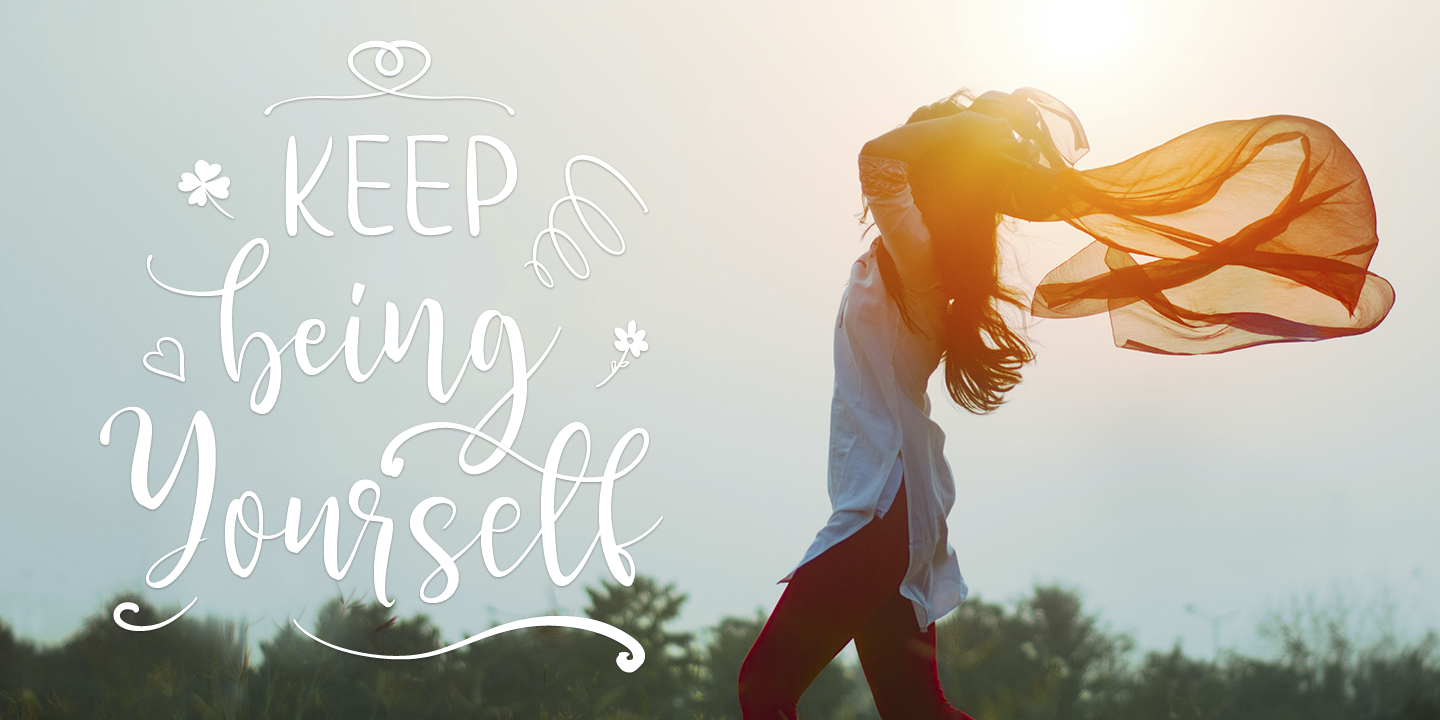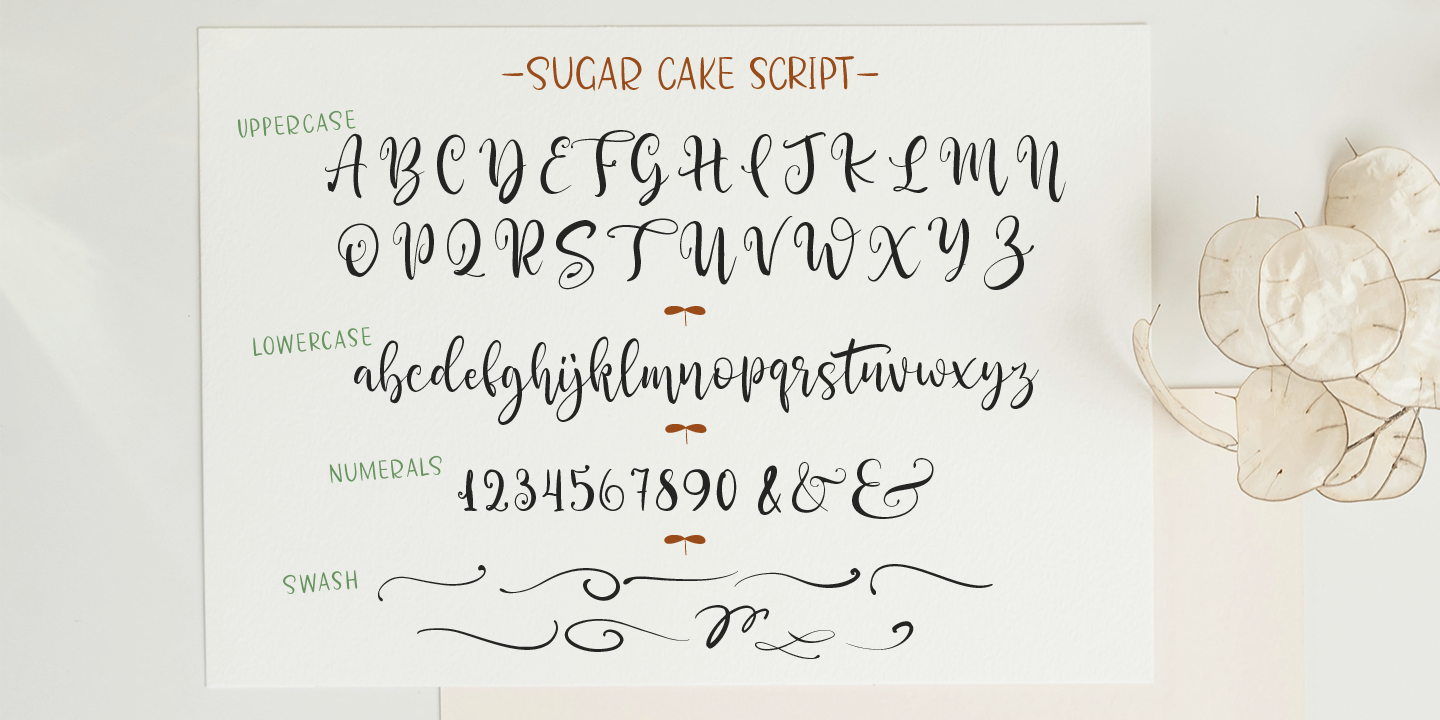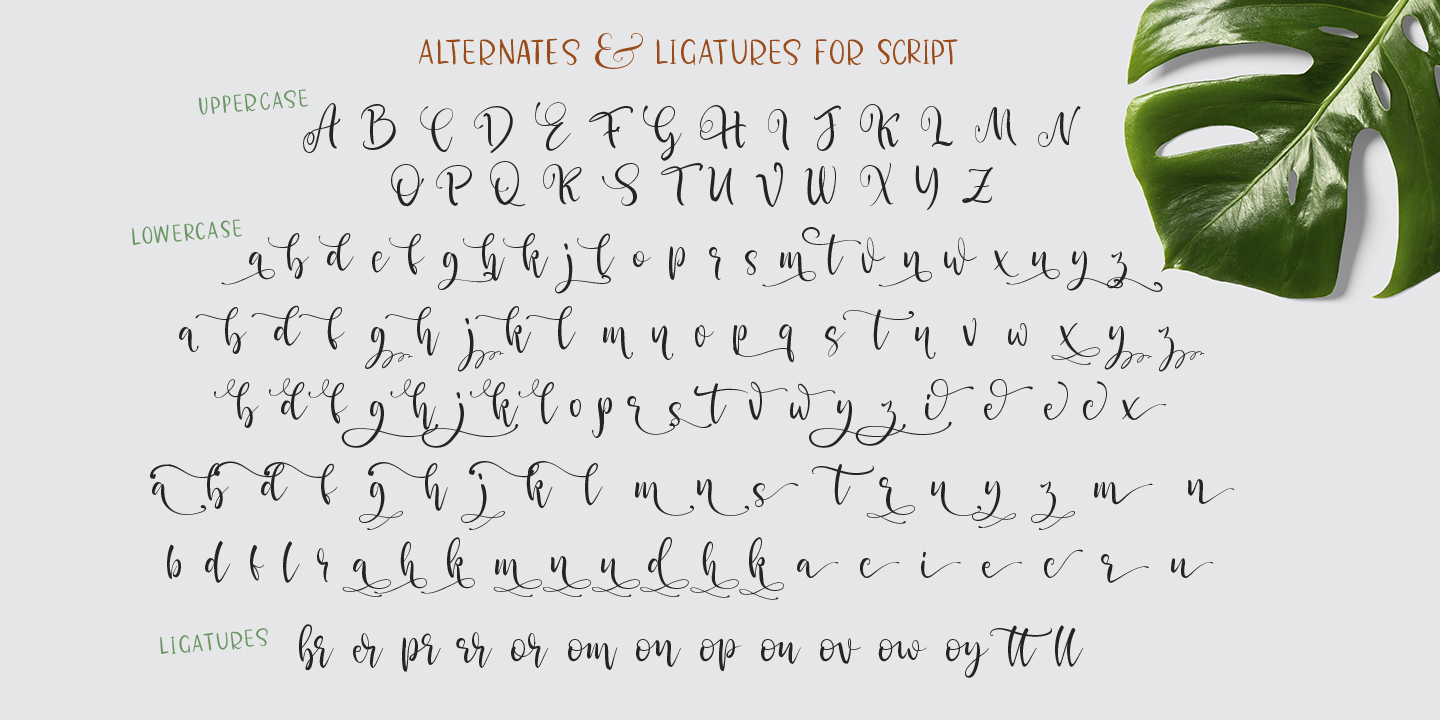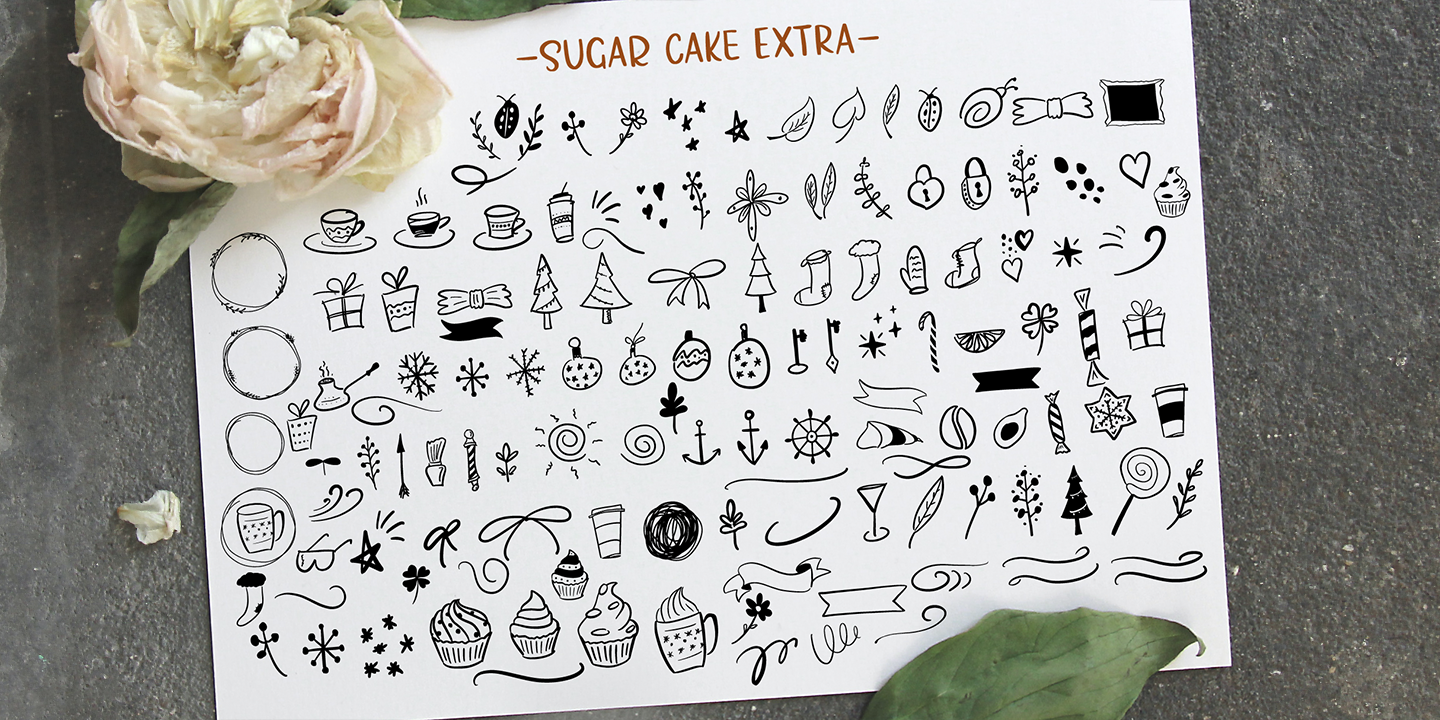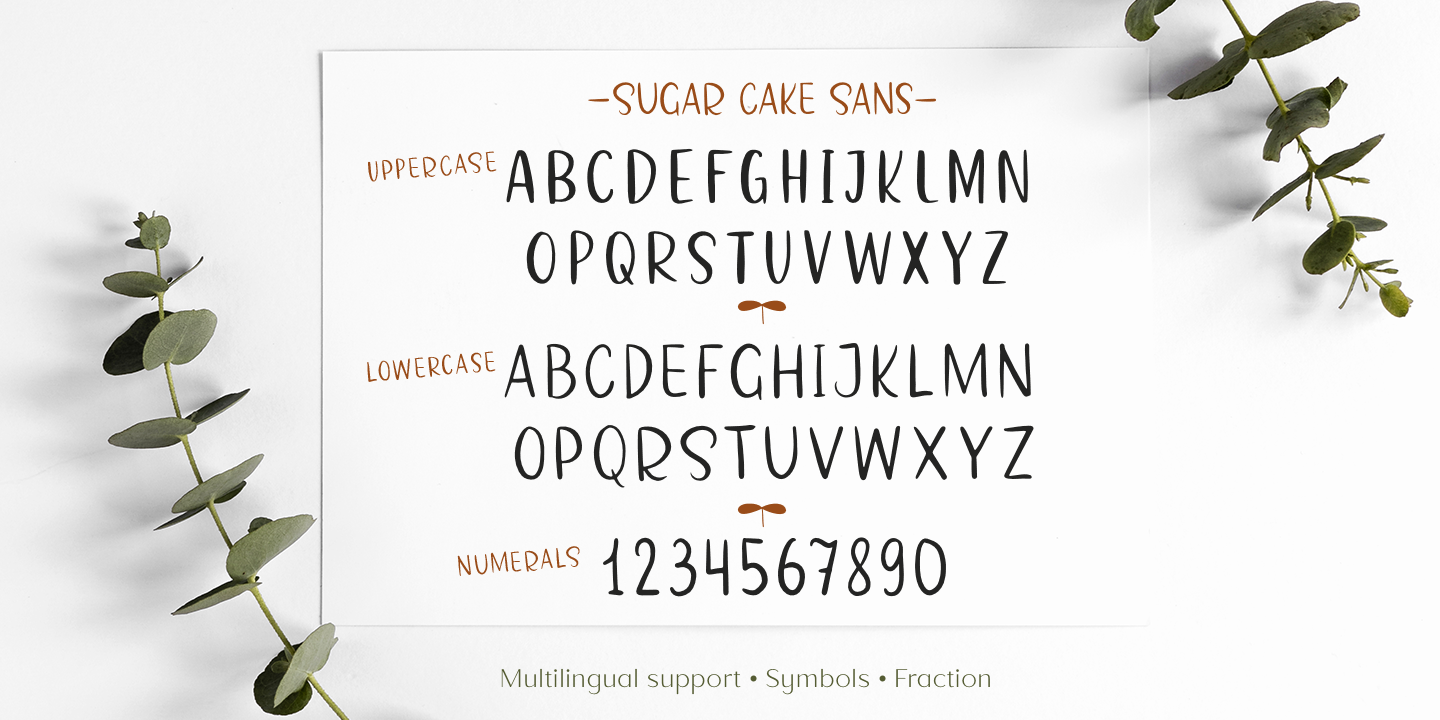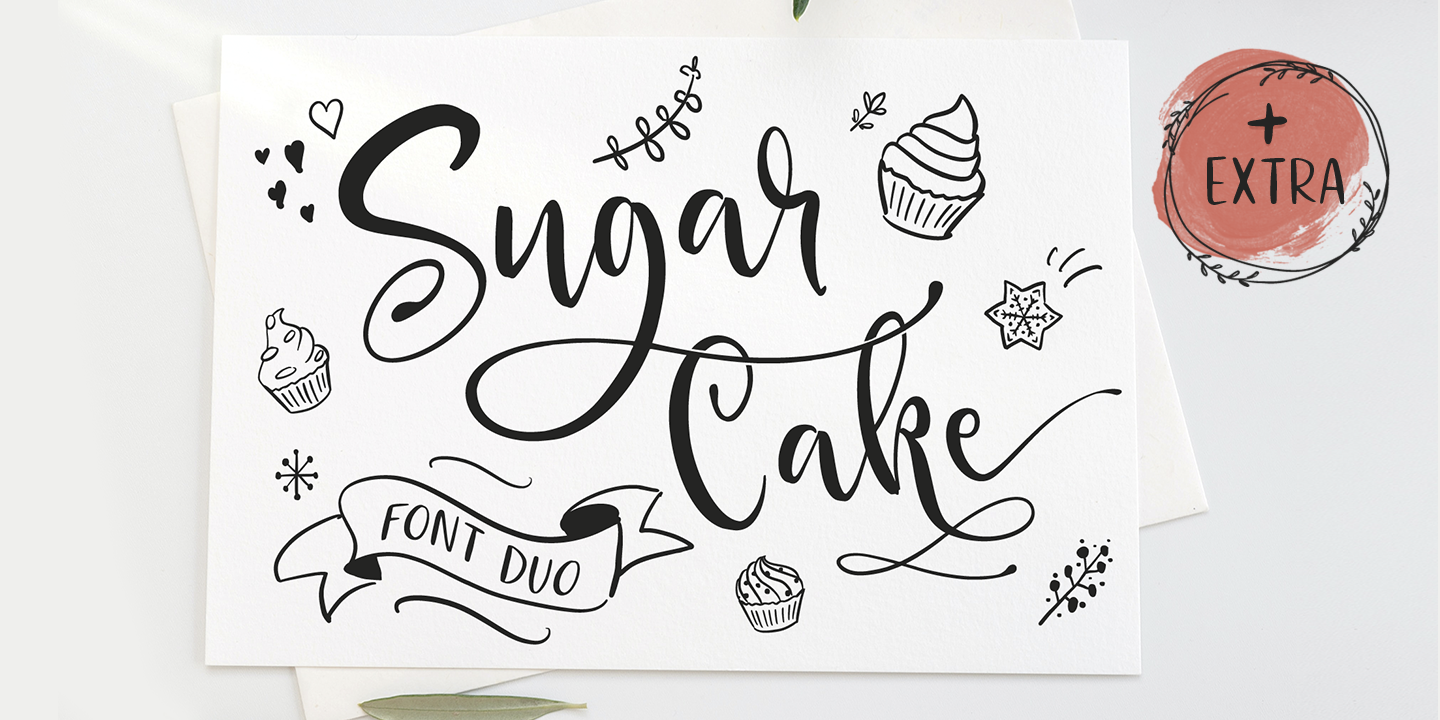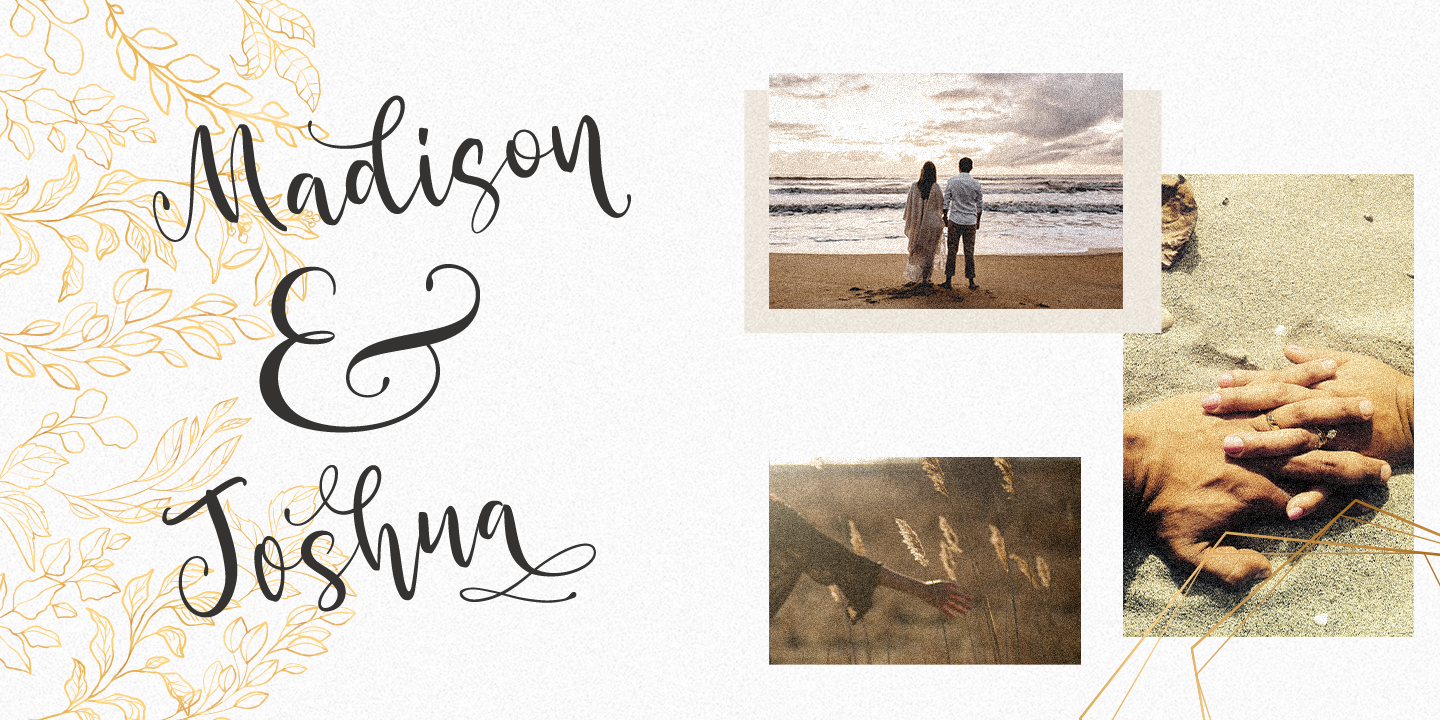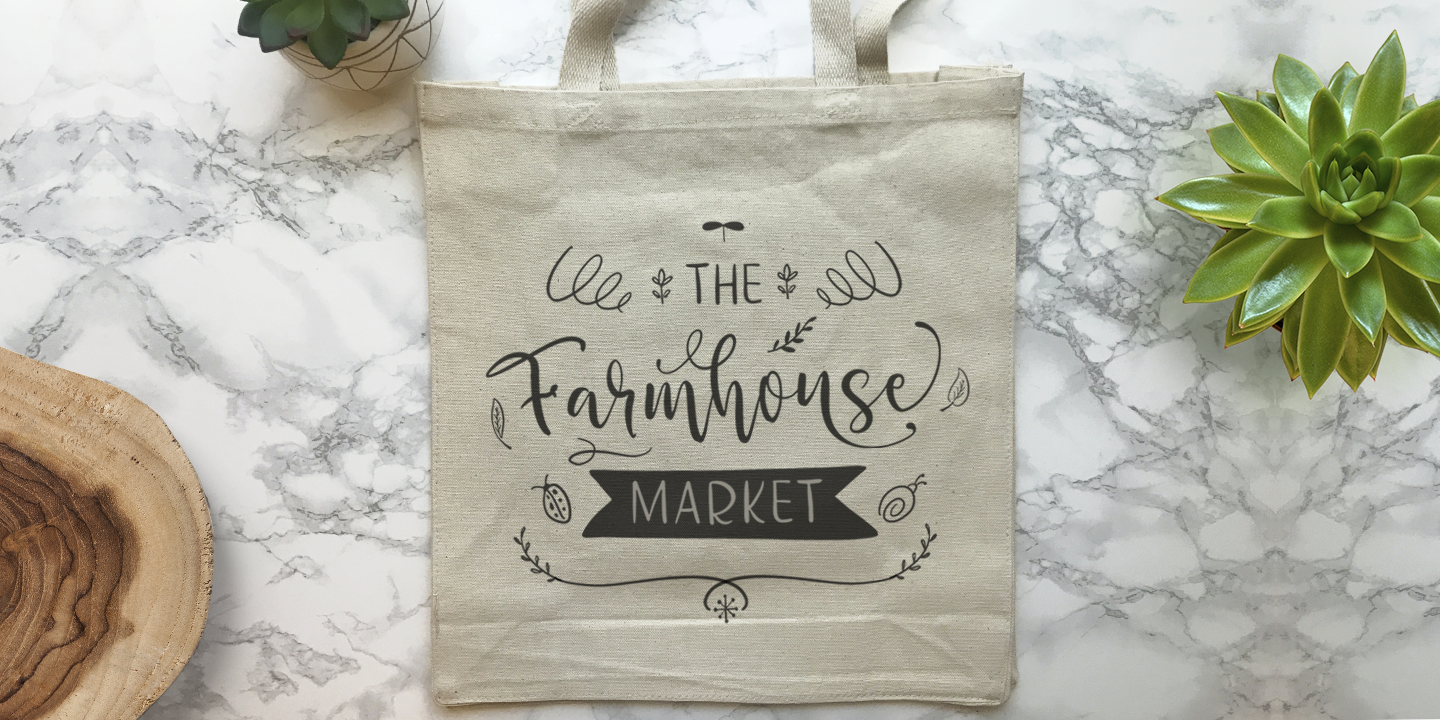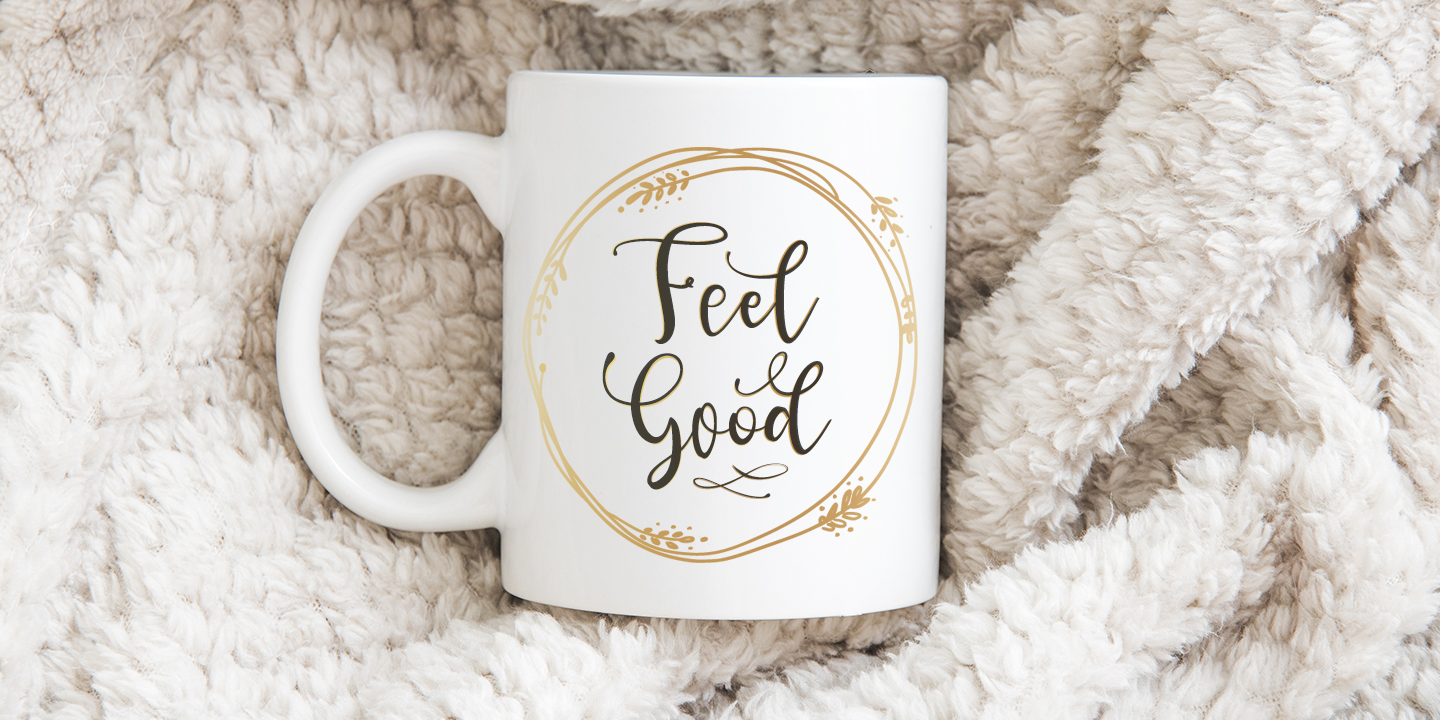
Sugar Cake (3 fonts)
The Script font includes many alternates, ligatures and swashes to create a diverse and unique composition. A hand-drawn sans serif font will complement the script and the hand drawn unique illustrations will decorate any of your design projects.